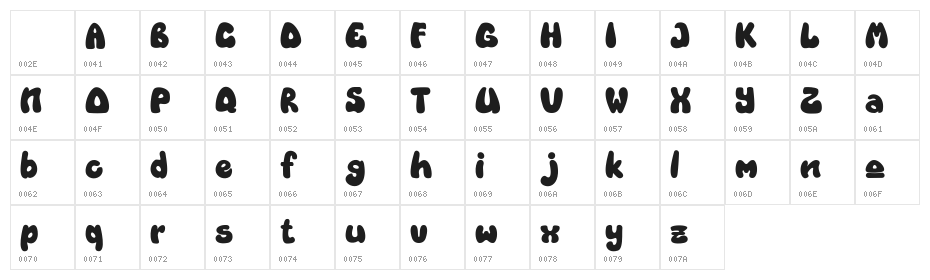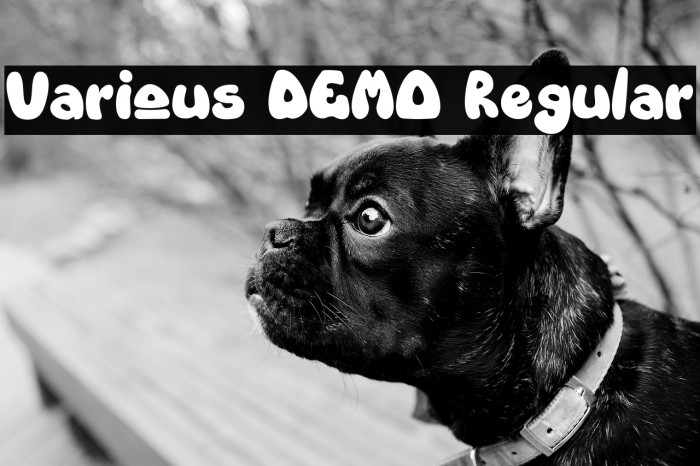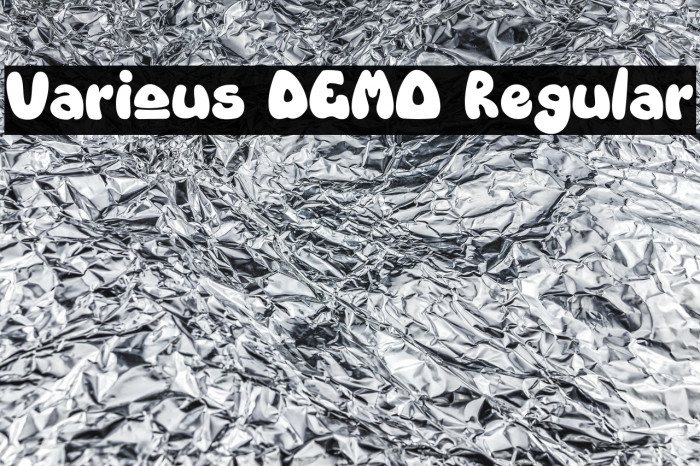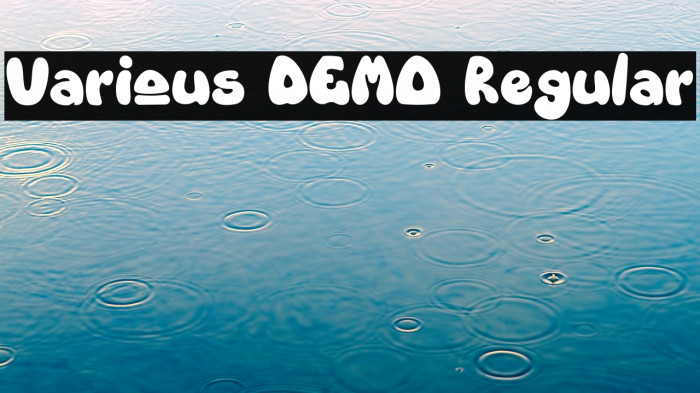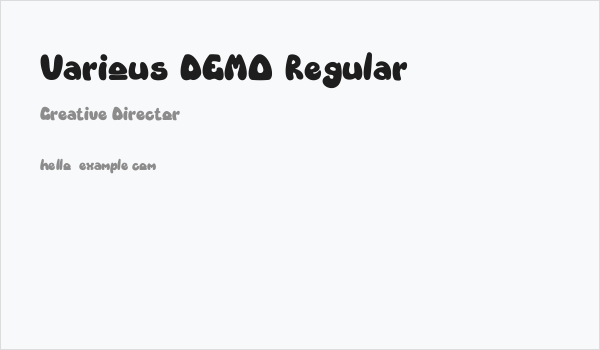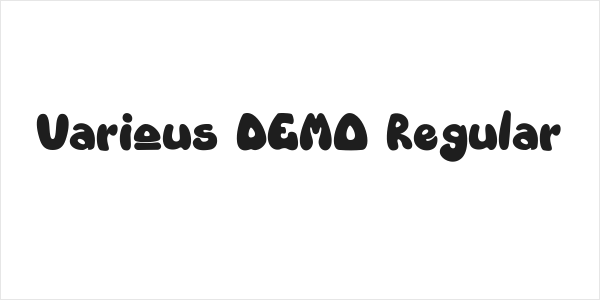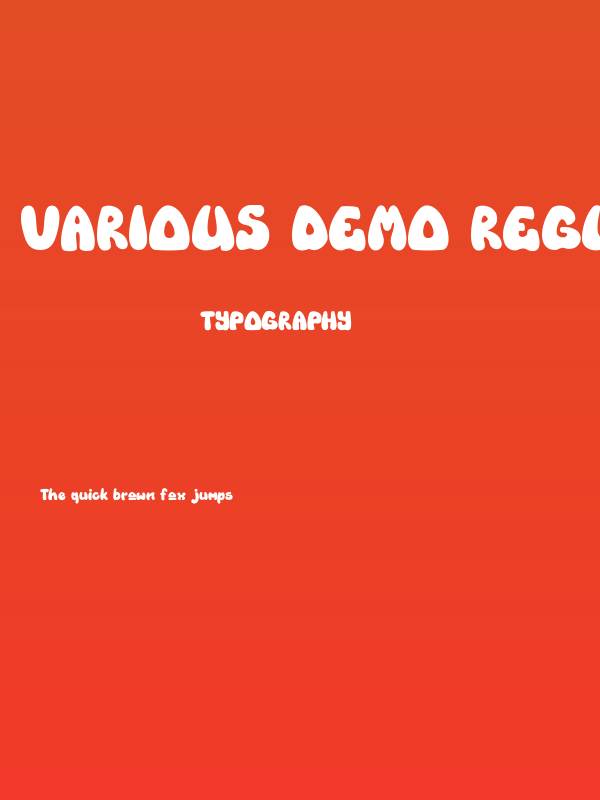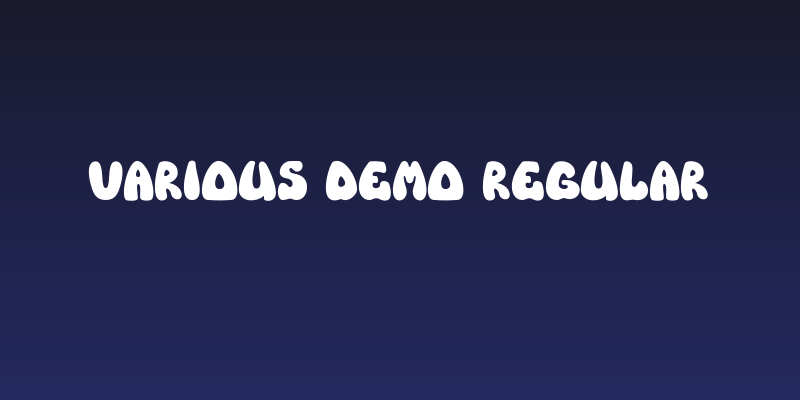
Various DEMO Regular Font
Various DEMO Regular Description
This font features a bold and playful design with rounded, bubbly characters that exude a sense of fun and creativity. The letters are thick and have a consistent weight throughout, giving them a strong presence on the page. The curves are smooth and exaggerated, contributing to a whimsical and informal appearance. This style is ideal for projects that require a lively and engaging aesthetic, making it suitable for children's books, playful branding, or eye-catching headlines. The font maintains a consistent width, ensuring readability while adding a unique flair to any design.
| Proposed Projects | Children's books, playful branding, eye-catching headlines, posters, and creative invitations. |